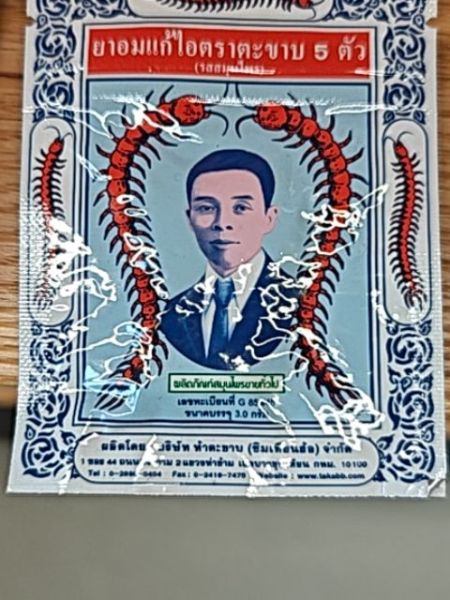
Takabb Anti-Cough Pill
A medicinal product used for relieving cough symptoms.
1952
Thailand
The typography on the packaging includes bold serif fonts for the main product name, providing a sense of tradition and reliability. The use of red for the product name makes it stand out against the blue background, while additional details are in a smaller, more understated typeface, balancing information visibility and aesthetic.
The packaging is ornate, featuring intricate blue patterns around the border. At the center, there is an illustrated portrait of a man flanked by two large centipedes. The combination of vivid colors and detailed artwork makes it striking.
- Traditional remedy for cough relief
- Known for its distinctive centipede imagery
- Popular in Southeast Asian countries